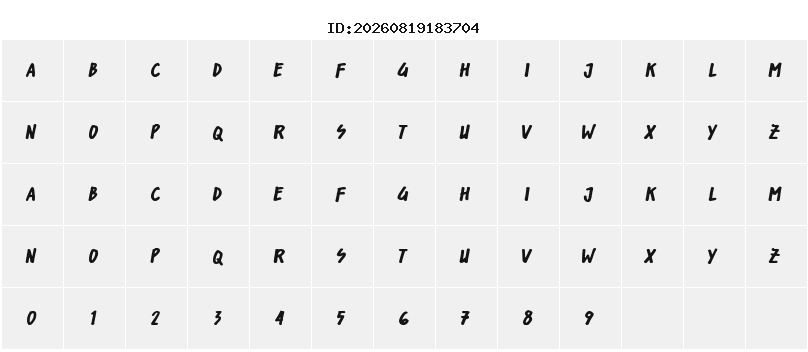
Shorelines Display Preview
• Font Name: Shorelines Display
• Full Font Name: Shorelines Display
• Designer: The Branded Quotes
About Shorelines Display.otf
Shorelines Display.otf is a modern, elegant sans-serif font designed for ultimate readability and visual harmony. Perfect for branding, headlines, web design, and print materials.